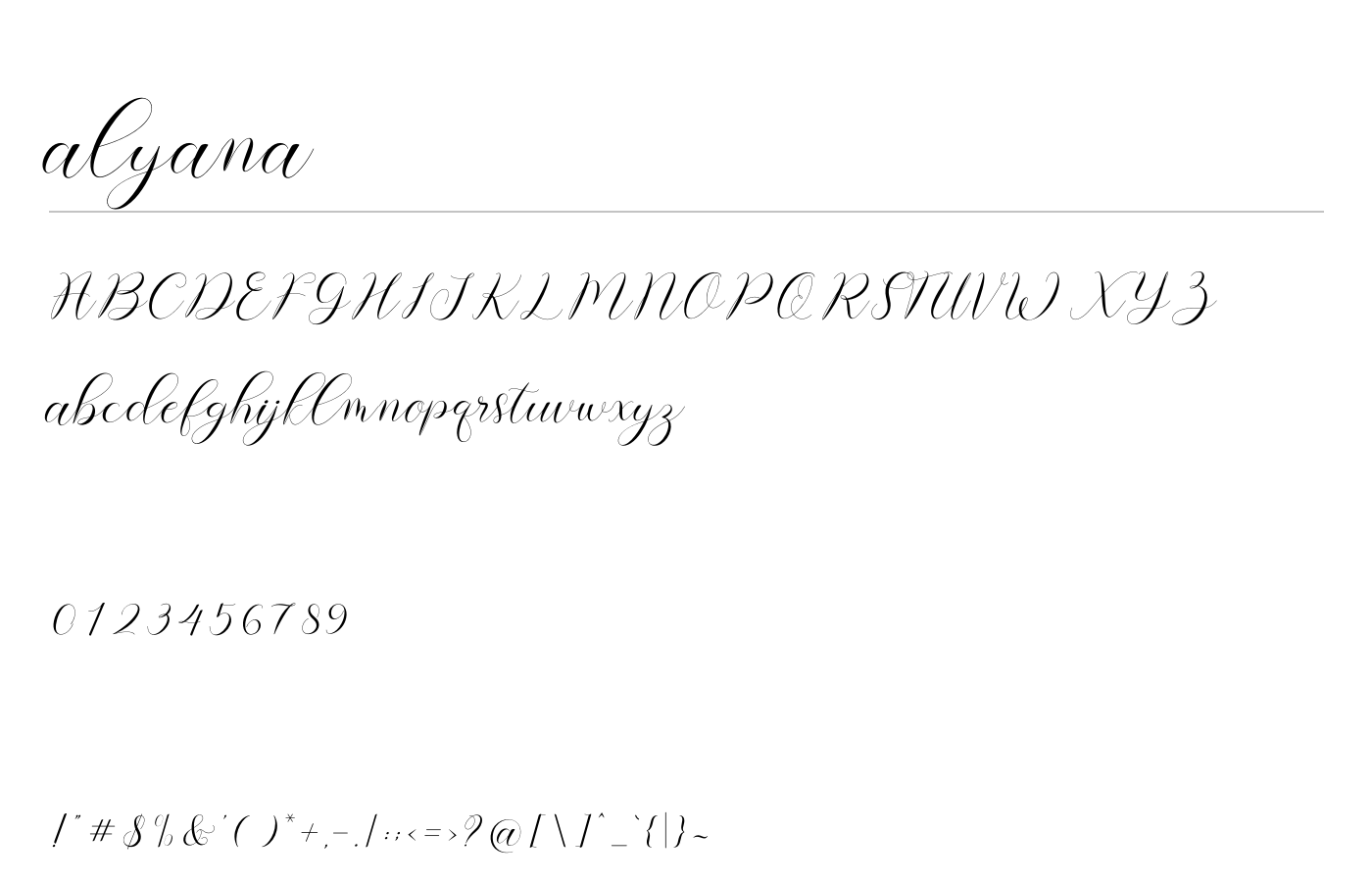
Alyana is an elegant, delicate script font featuring thin, flowing strokes with high contrast that evoke a refined, sophisticated feel. Its graceful letterforms with gentle swashes make it ideal for luxury branding, wedding invitations, and upscale editorial designs where a touch of feminine charm and romance is desired. This font’s airy and stylish appearance works beautifully for headlines and decorative text, adding a timeless, artistic flair.
alyana Font
About alyana Font